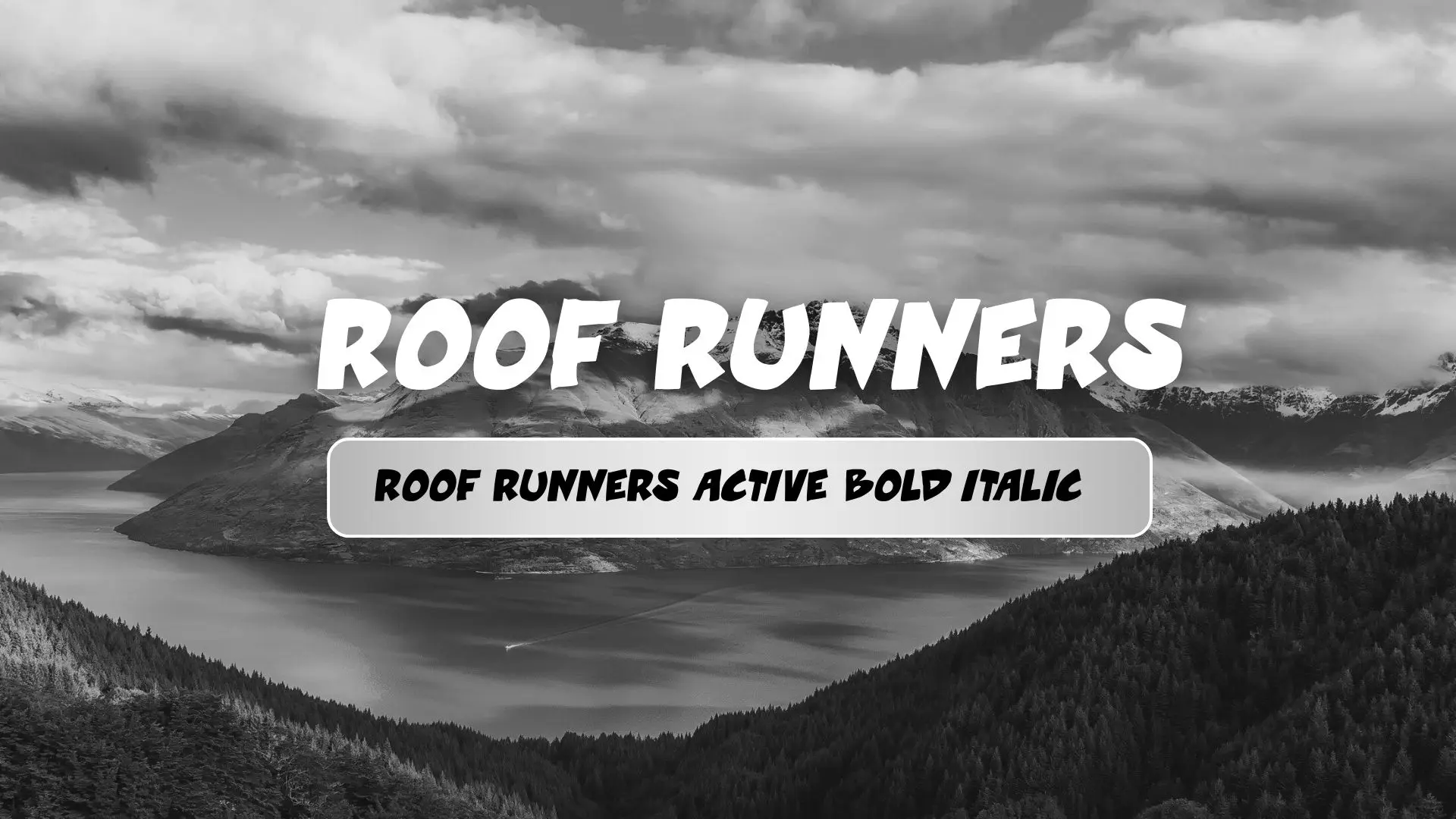
The font Roof runners active Bold Italic, designed by Andeh Pinkard, falls under the Display category & Roof runners active font family. Its smooth, flowing letterforms make it a versatile choice for projects that require both elegance and readability. Roof runners active is particularly well-suited for Branding, Logo, Cartoon, Headlines, Titles, Event Posters, Event flyers and Comic Books. With its balance of simplicity and decorative appeal, this font brings a polished touch to both personal and professional designs.